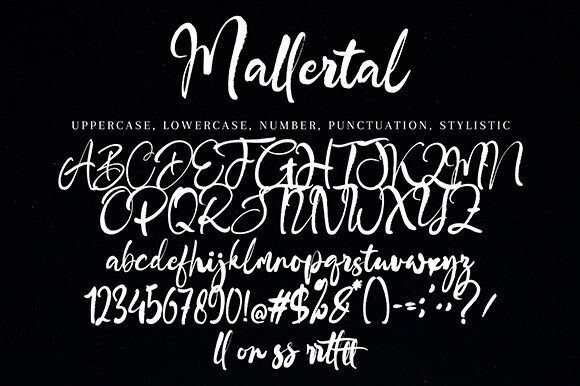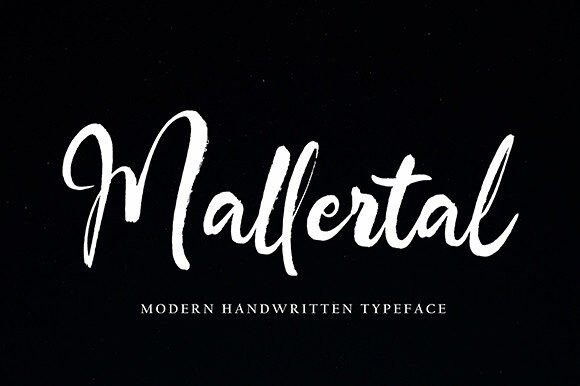
Mallertal Font
Designer: Pineungtype & Missinklab
Mallertal Font is an elegant and dainty handwritten font that features sweet and delicate swashes. This original look will appeal to a wide range of crafty ideas, from letterheads and titles to stationery.